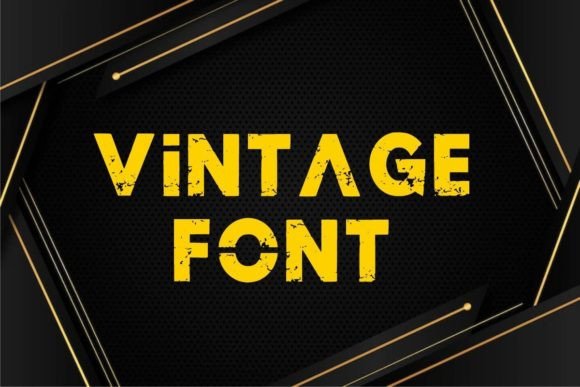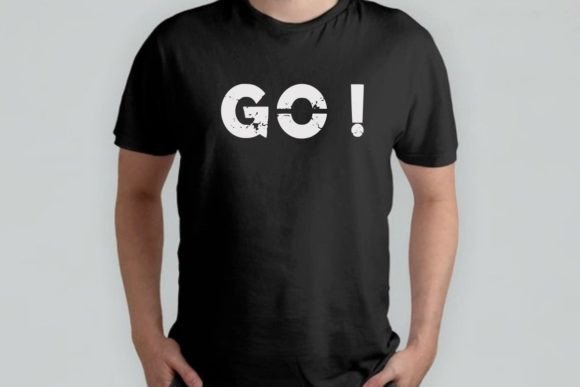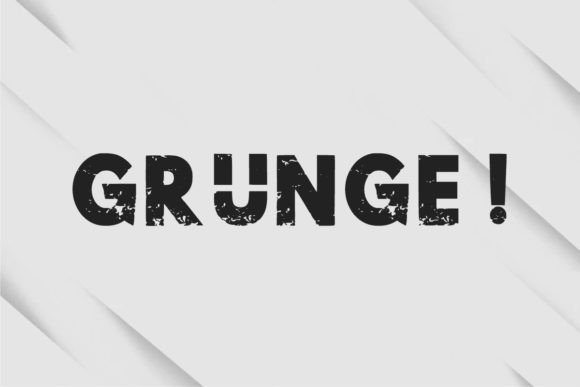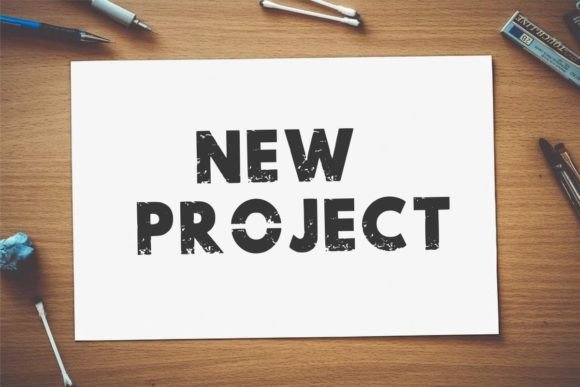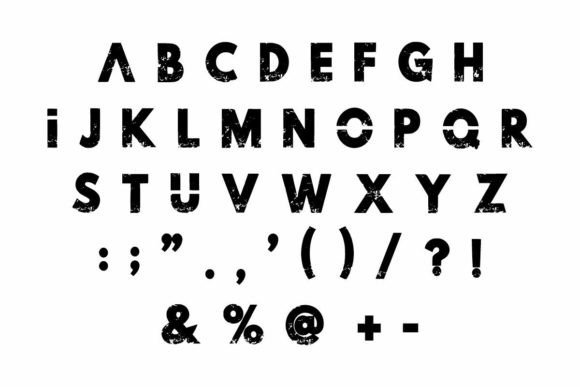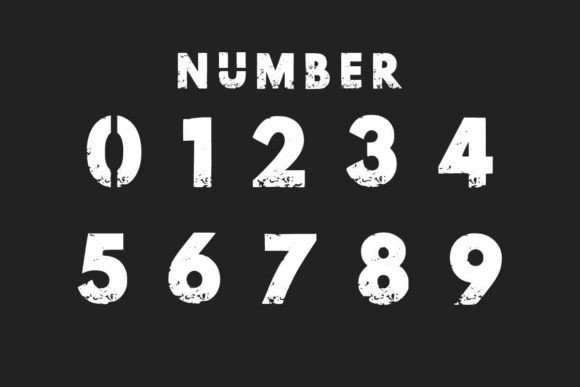
Unleash the Timeless Charm of Black Forest Font: Elevate Your Designs with a Vintage Classic
Are you on the hunt for a font that exudes a sense of nostalgia and sophistication? Look no further than the Black Forest Font, a vintage, classic, retro, and bold display font that’s perfect for a wide range of design projects. From blog posts and logos to branding, ads, invitations, greeting cards, planners, photo albums, decorations, and more, this versatile font is sure to become a staple in your design arsenal.
The Essence of Black Forest Font
Black Forest Font is a masterful blend of classic elegance and bold statement-making. Its vintage charm is reminiscent of a bygone era, evoking memories of antique posters, classic movies, and timeless literature. The font’s bold and retro aesthetic makes it perfect for designers and crafters looking to add a touch of nostalgia to their work.
One of the best things about Black Forest Font is its incredible versatility. Whether you’re working on a blog post, logo, branding campaign, or any other design project, this font is sure to make a statement. Here are just a few ideas to get you started:
- Blog Posts: Use Black Forest Font as a header or title font to add a touch of elegance and sophistication to your blog posts.
- Logos and Branding: Create a lasting impression with a bold and memorable logo that showcases your brand’s personality.
- Ads and Marketing Materials: Grab attention and drive engagement with eye-catching ads and marketing materials that feature Black Forest Font.
- Invitations and Greeting Cards: Add a touch of classic charm to your invitations and greeting cards, making them perfect for special occasions.
- Planners and Photo Albums: Use Black Forest Font to add a personal touch to your planners and photo albums, making them truly unique and special.
- Decorations: Create beautiful and eye-catching decorations for parties, events, or everyday decor.
Why Choose Black Forest Font?
So, what sets Black Forest Font apart from other fonts on the market? Here are just a few reasons why designers and crafters love this vintage classic:
- Unique and Memorable: Black Forest Font is a one-of-a-kind font that’s sure to make your designs stand out from the crowd.
- Highly Versatile: This font can be used for a wide range of design projects, from digital to print.
- Easy to Read: Despite its bold and decorative nature, Black Forest Font is surprisingly easy to read, making it perfect for body text and headlines.
- Timeless Appeal: This font’s vintage charm ensures that it will never go out of style, making it a valuable addition to your design library.
Tips for Using Black Forest Font
To get the most out of Black Forest Font, here are a few tips to keep in mind:
- Use it Sparingly: While Black Forest Font is bold and eye-catching, it’s best to use it sparingly to avoid overwhelming your design.
- Pair it with Other Fonts: Experiment with pairing Black Forest Font with other fonts to create a unique and visually appealing combination.
- Adjust the Size and Color: Don’t be afraid to experiment with different sizes and colors to find the perfect combination for your design.
Black Forest Font is a true design treasure that’s sure to become a favorite among designers and crafters. Its unique blend of vintage charm and bold statement-making makes it perfect for a wide range of design projects. Whether you’re looking to add a touch of nostalgia to your work or simply want to make a lasting impression, Black Forest Font is the perfect choice. So why wait? Download Black Forest Font today and start elevating your designs to new heights!